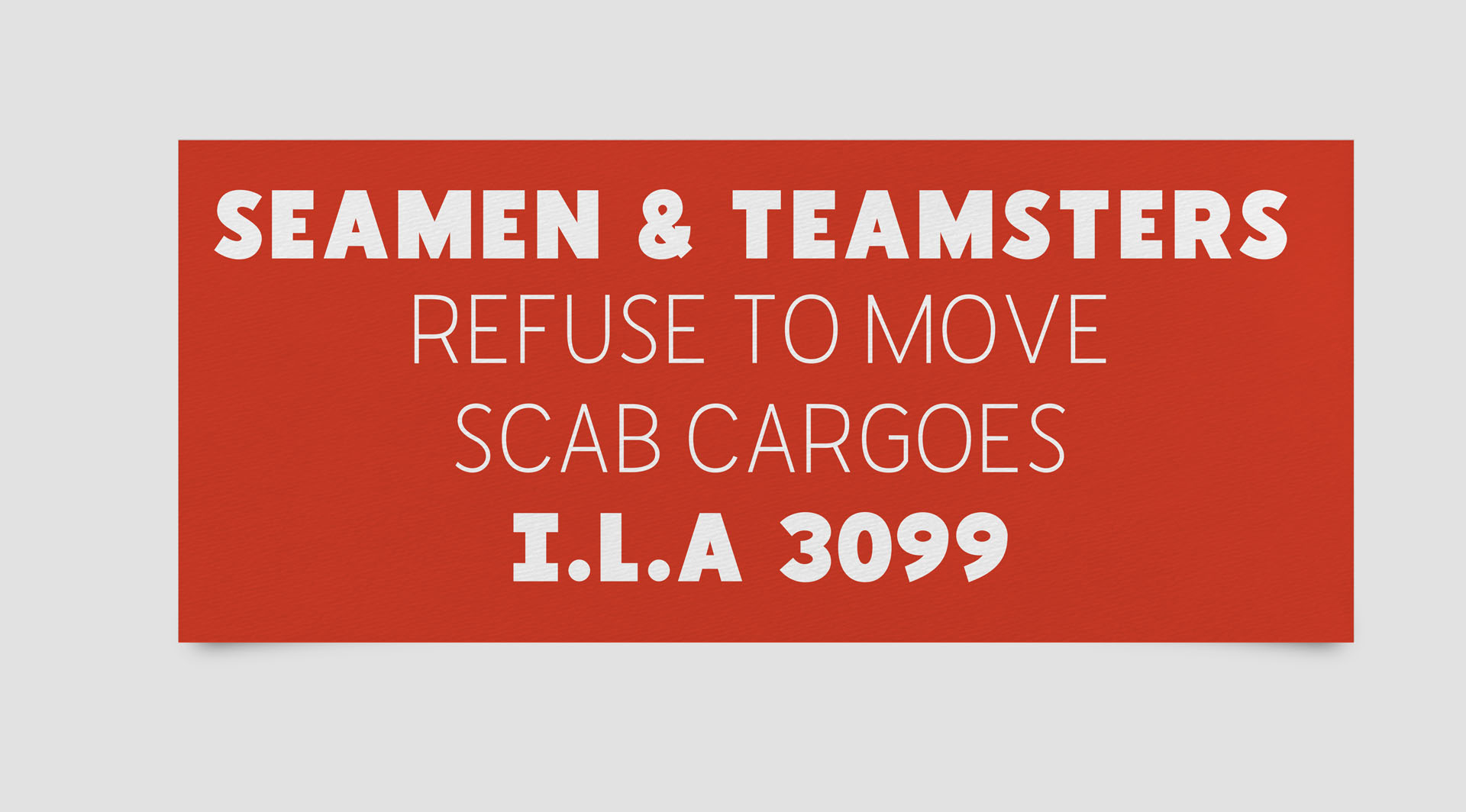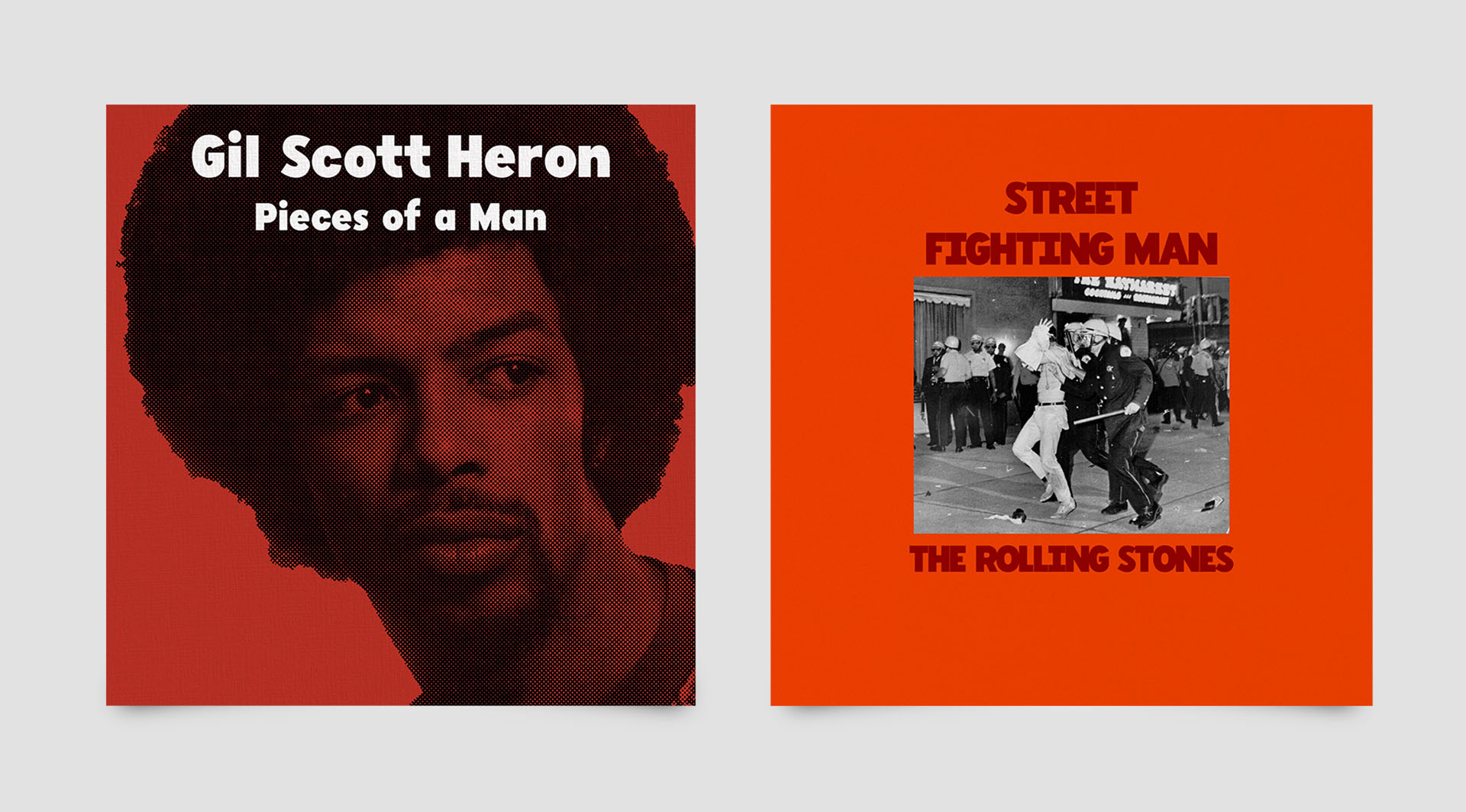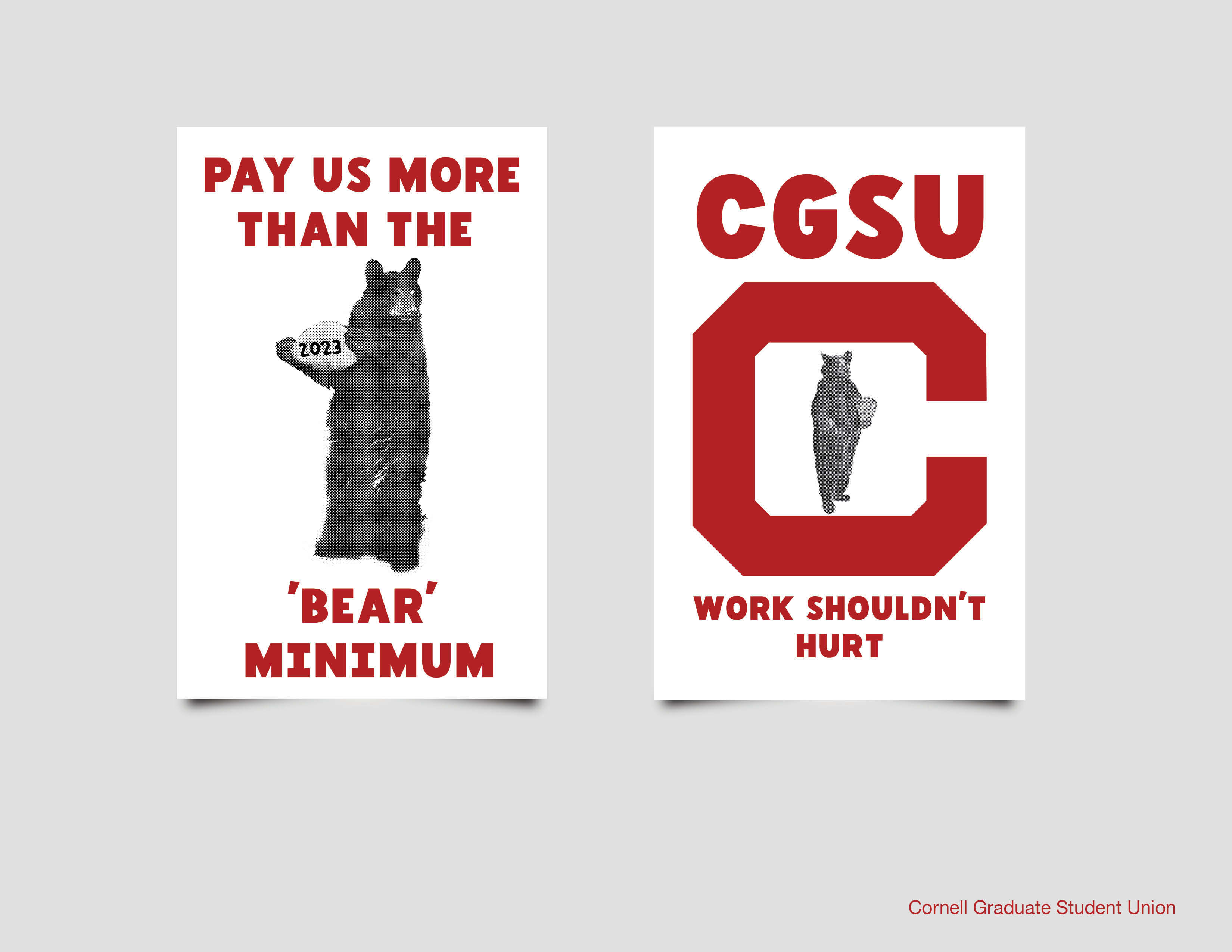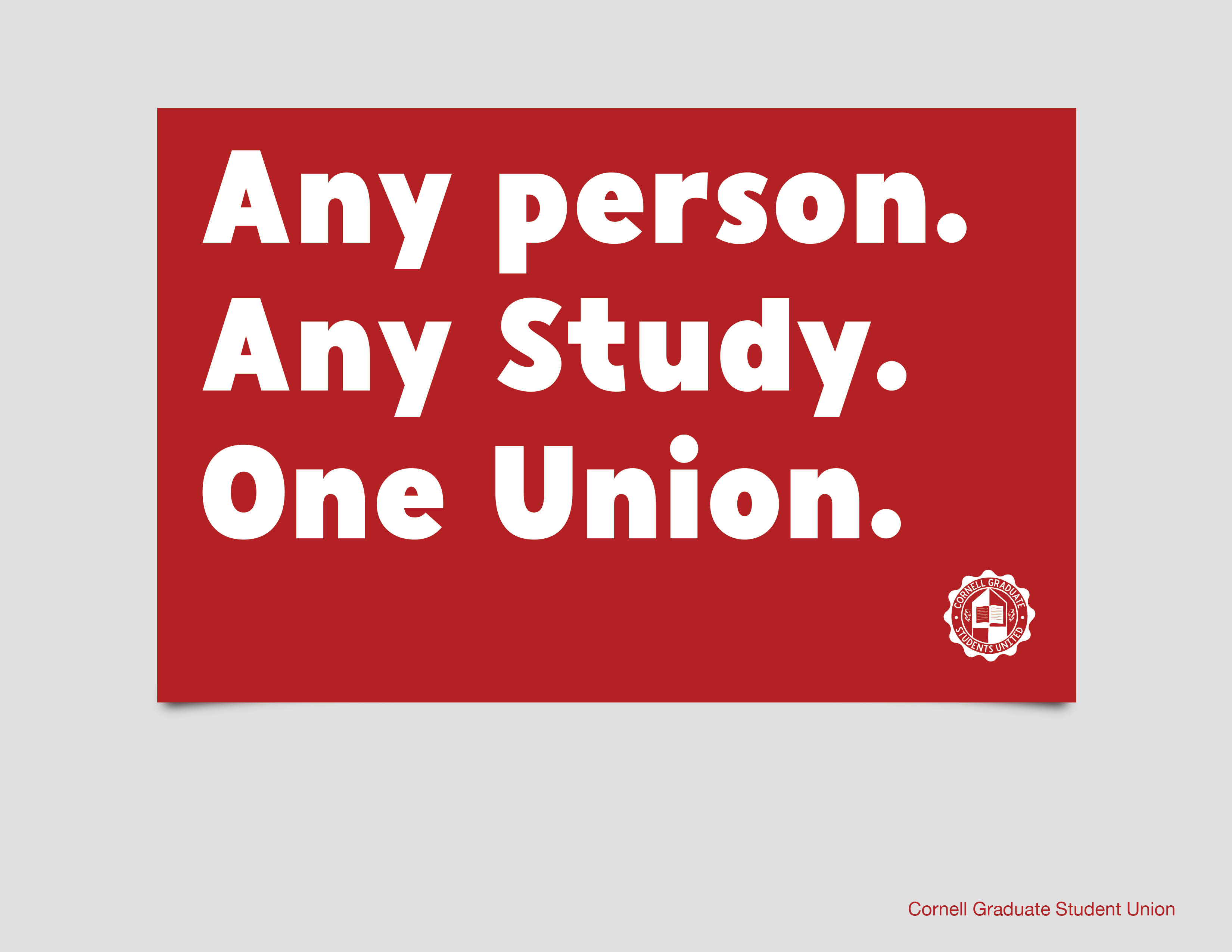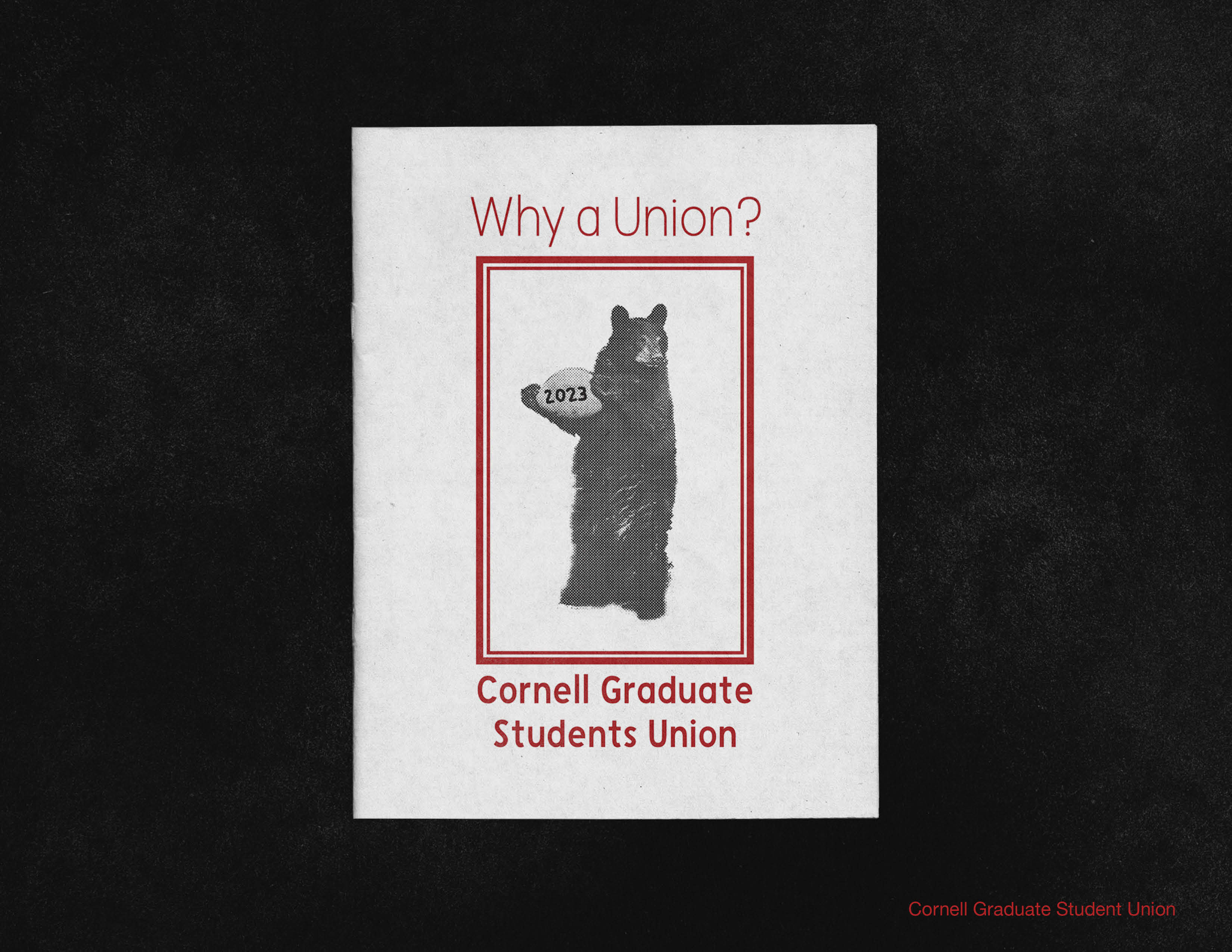
Mai
A vernacular sans serif born from the posters of the Atelier Populaire, the anonymous workshop that gave the French uprisings of May 1968 their visual voice. Rebellious in spirit. Optimistic by nature.
The streets belong to the people
One Big Union
Strike
About the typeface
The Atelier Populaire didn't have a house style. They had urgency. Working through the night in occupied studios, student and worker printmakers produced hundreds of posters that somehow cohered into one of the most recognizable visual identities in the history of political art. Mai draws directly from that tradition. The letterforms are rooted in the rough, immediate quality of hand-drawn protest typography, stripped of decoration and built for impact. Three weights are currently available: Mai Smooth, Mai Ultrabold, and Mai Italic, each carrying the same restless energy at any size.
The story behind it
This typeface didn't start with typography. At fifteen, a run-in with the law landed me in a private school where a poet and printmaker named Gary Young ran a Book Arts class built around a Vandercook letterpress. That machine changed everything. Seven years later I was studying printmaking at UC Santa Cruz, working in stone lithography, photo lithography, intaglio, letterpress, and screen printing. When Donald Trump was elected in 2016, my practice shifted. I stopped making art about form and started making art about power. After graduating, I moved to San Francisco and found myself living around the corner from the Letterform Archive. Having written about the Atelier Populaire for years, I was now holding their work in my hands. Mai is what came next. It is a typeface in direct conversation with those posters: a continuation of their legacy, not a reproduction of it.